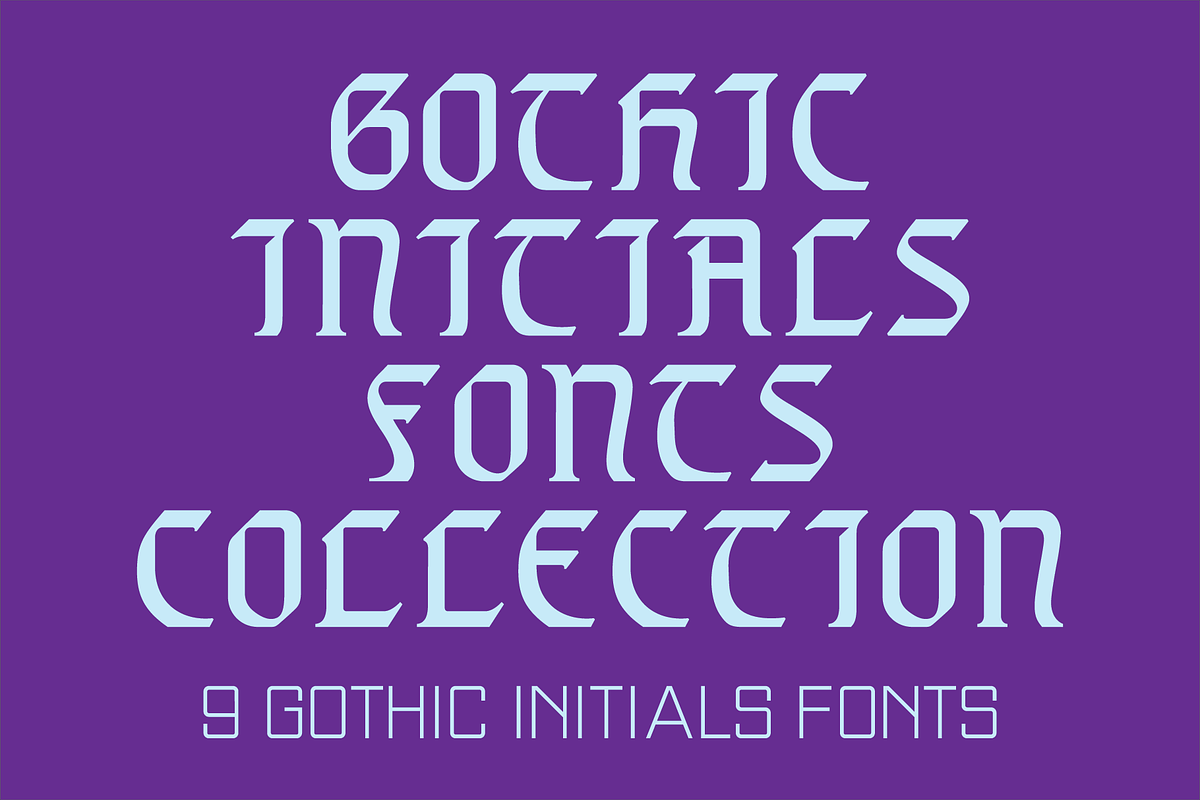
Gothic Initials Fonts Collection Free Download
Gothic Initials Fonts Collection Free Download is a stunning set of ornate and medieval-inspired decorative letterforms, perfect for adding old-world elegance and historical flair to your creative projects. Whether you're working on illuminated manuscripts, fantasy book covers, wedding invitations, branding for luxury products, or themed event posters, this collection brings timeless Gothic artistry to your typography.
Each initial is beautifully detailed with intricate flourishes, sharp serifs, and stylized embellishments reminiscent of medieval calligraphy and cathedral engravings. These fonts are ideal for monograms, drop caps, or statement titles where dramatic visual impact is desired.